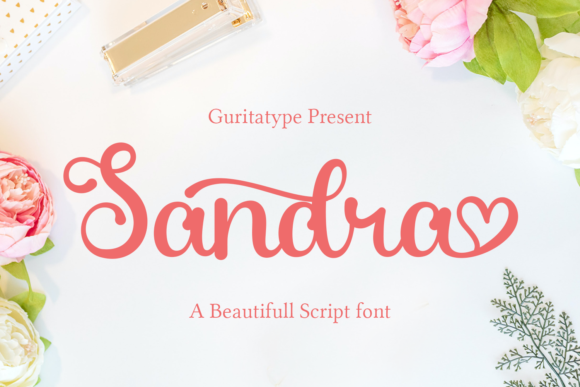
Behold, Sandra Font - a script font family born from inspiration and crafted with grace, inviting you on a journey of handwritten elegance. Sandra's essence is captured in its smooth, flowing characters, reminiscent of a gentle breeze caressing a field of flowers. Immerse yourself in the beauty of its heart tail, a distinctive element that adds a touch of refinement and uniqueness to every word you write.
With Sandra Font, your words transcend the ordinary, transforming into works of art. Whether you're crafting heartfelt invitations, elegant branding designs, or simply expressing your creativity, Sandra's enchanting curves and delicate lines will elevate your projects to new heights.
Designed by the talented Guritatype, Sandra Font is a PUA encoded masterpiece, offering effortless access to a diverse range of glyphs and swashes. Unleash your creativity and explore the endless possibilities, creating designs that capture the essence of sophistication and charm.
Step into a world where calligraphy and elegance intertwine, and let Sandra Font guide you on a journey of artistic expression. Each stroke, each letter, each word written with Sandra Font carries a story, a touch of your personality, a reflection of your unique style. Discover the limitless potential hidden within the curves and flourishes of Sandra Font, and unlock the key to creating designs that resonate with your audience.
With Sandra Font, you'll never be short of inspiration. Its versatility knows no bounds, whether you're designing wedding invitations, creating logos that exude elegance, or crafting social media posts that stand out.
Embrace the power of Sandra Font, and let your creativity soar. Let your words dance across the page, leaving a trail of beauty and sophistication in their wake. Elevate your designs, captivate your audience, and leave a lasting impression with Sandra Font - the epitome of handwritten elegance.